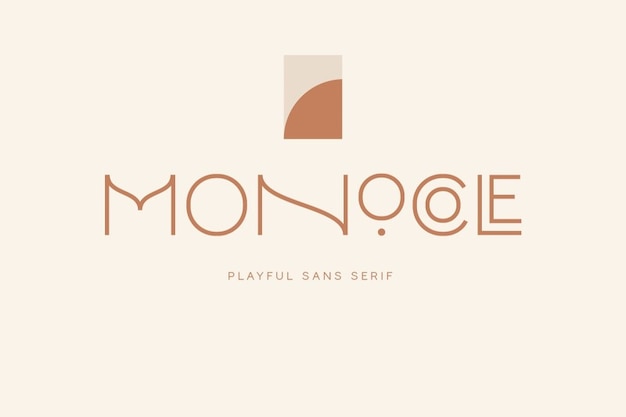
Monocole
Monocole Font
It is a font that effortlessly combines playfulness, retro vibes, and a dash of weirdness to create a unique vintage look. With its quirky yet charming design, it's perfect for adding a touch of nostalgia to your projects. Whether you're designing a logo that needs a vintage twist or creating eye-catching retro posters, "Monocole" brings that playful, slightly eccentric flair that sets your work apart.